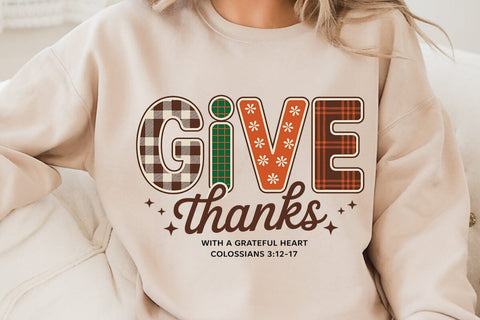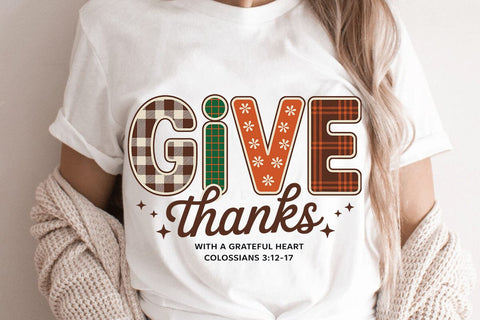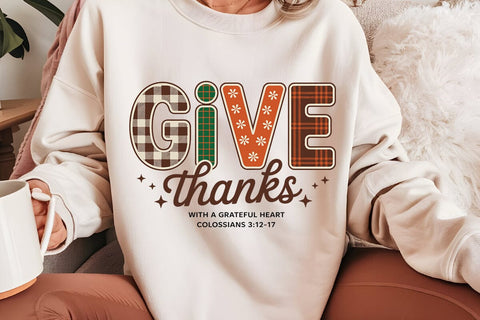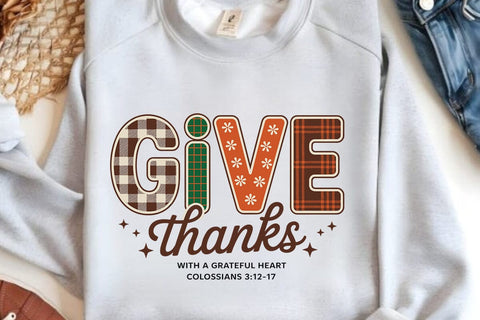
Give Thanks With A Grateful Heart Colossians 31217
Celebrate the beauty of autumn with this Fall Words SVG Sublimation Bundle! đ Packed with cozy quotes, seasonal sayings, and hand-lettered typography designs, this bundle is perfect for Cricut, Silhouette, sublimation printing, DIY crafts, farmhouse decor, mugs, shirts, tote bags, stickers, and signs.
Whether youâre creating fall t-shirts, Thanksgiving projects, or rustic farmhouse decorations, these autumn word art designs will bring warmth, charm, and festive flair to your seasonal crafts.
⨠With this Fall Words Sublimation Bundle, youâll have the perfect set of autumn typography designs to make your projects stand out this season. Add warmth, gratitude, and cozy vibes to every creation!